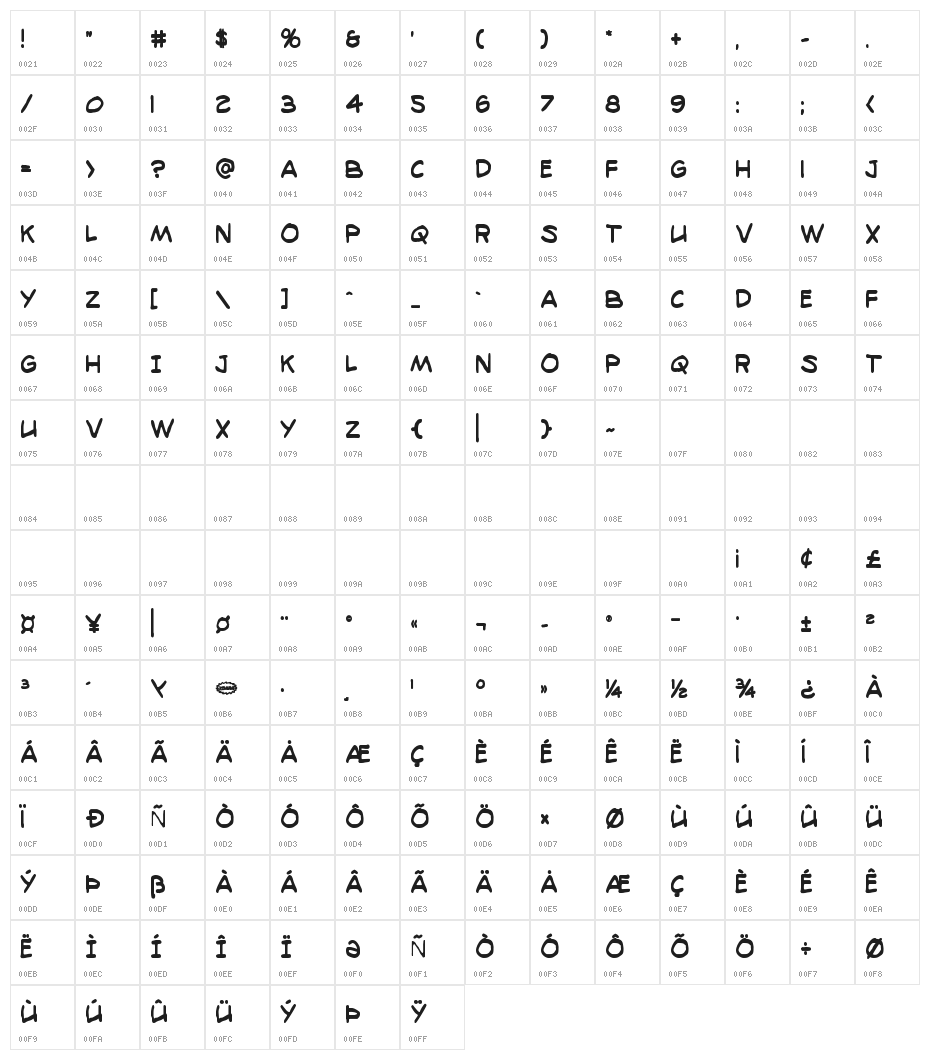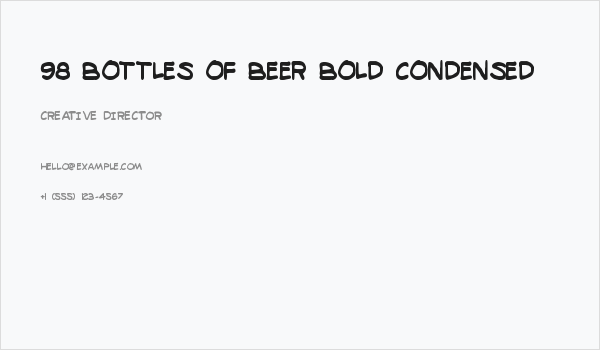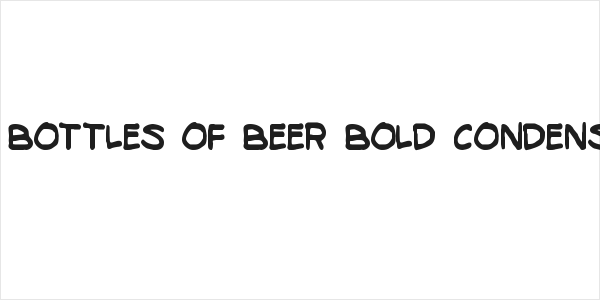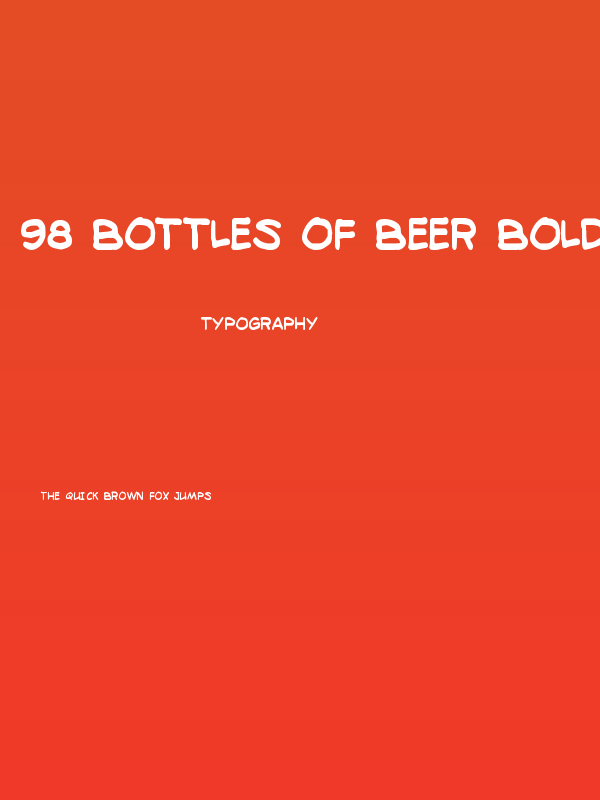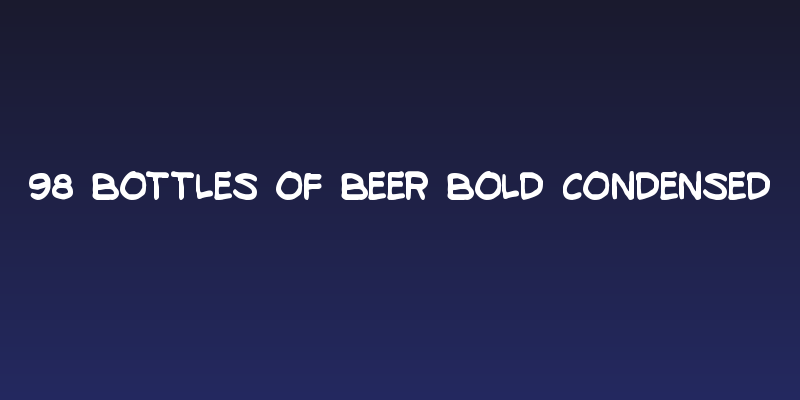
98 Bottles of Beer Bold Condensed Font
98 Bottles of Beer Bold Condensed Description
This font features a bold and condensed style with a playful, hand-drawn appearance. The characters are thick and rounded, giving them a friendly and approachable look. The uppercase and lowercase letters maintain a consistent style, with a slight slant that adds to the casual feel. The numbers and special characters are designed to match the overall aesthetic, ensuring a cohesive look across all text. This font's unique style makes it stand out, making it ideal for projects that require a touch of personality and creativity.
| Overall Style | Playful, Casual |
| Proposed Projects | Ideal for children's books, playful branding, posters, and creative social media graphics. |